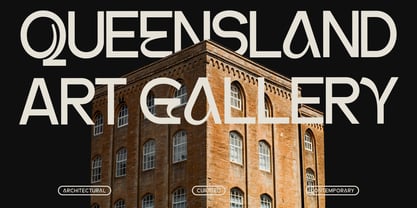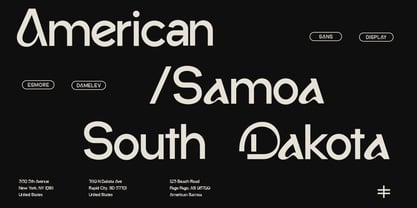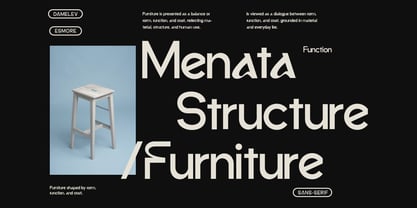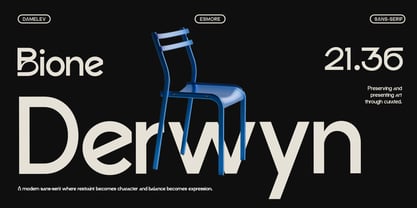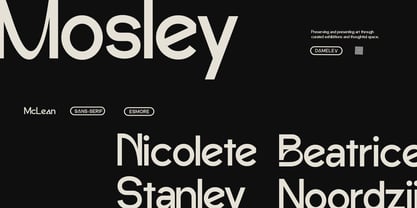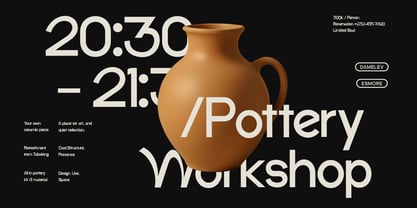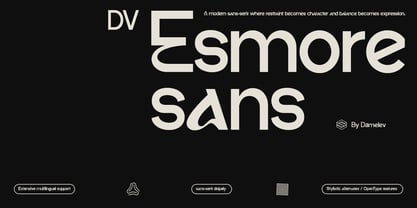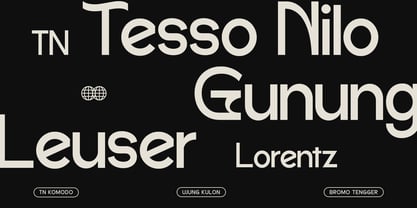
DV Esmore
DV Esmore is a contemporary sans serif display typeface created for strong visual impact. Its bold construction and clean geometry make it an excellent choice for headlines, branding, and large-scale typography. Designed with clarity and character in mind, the font delivers a modern aesthetic while maintaining high readability at display sizes. It performs well across print and digital applications, including editorial design, posters, logos, packaging, and social media. Modern sans serif display design Optimized for headlines and display use Clean and versatile appearance Suitable for branding, editorial, and digital projects